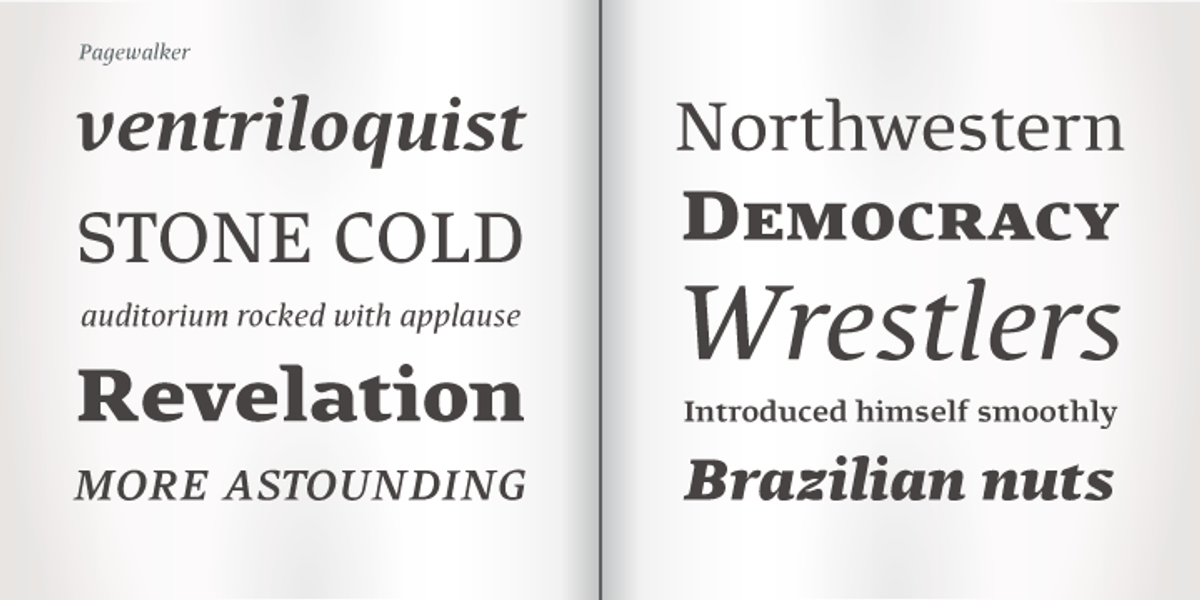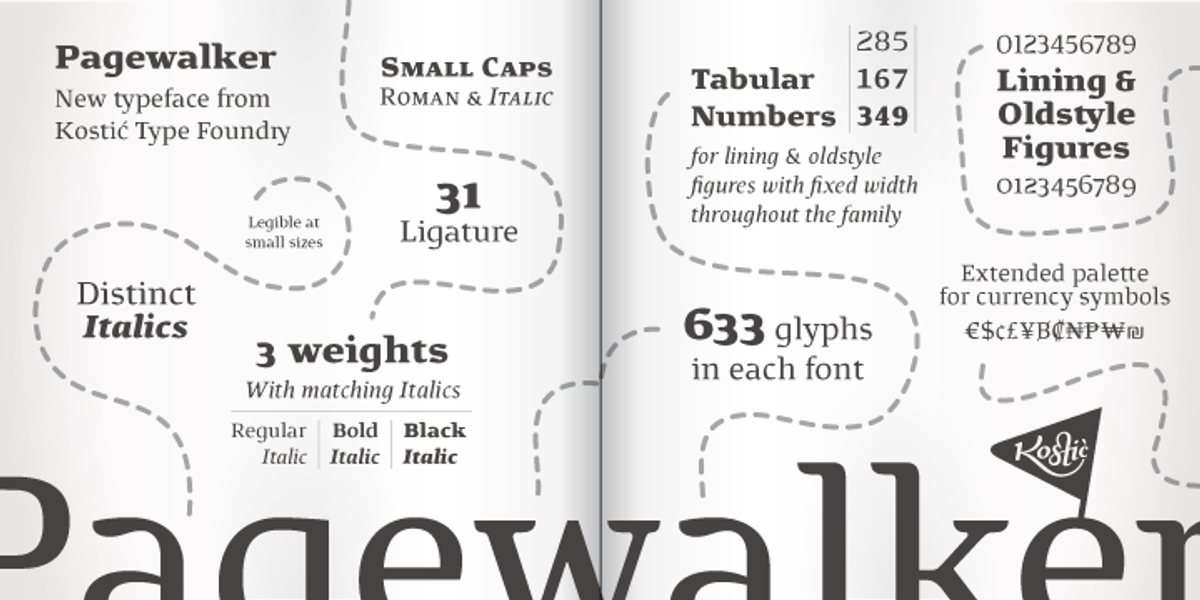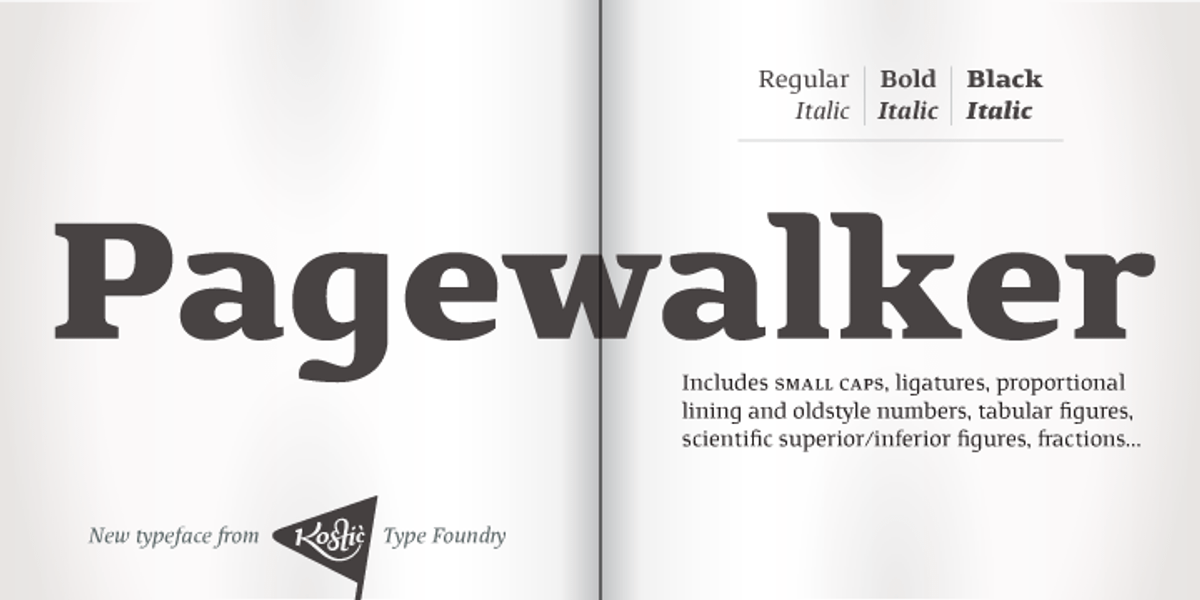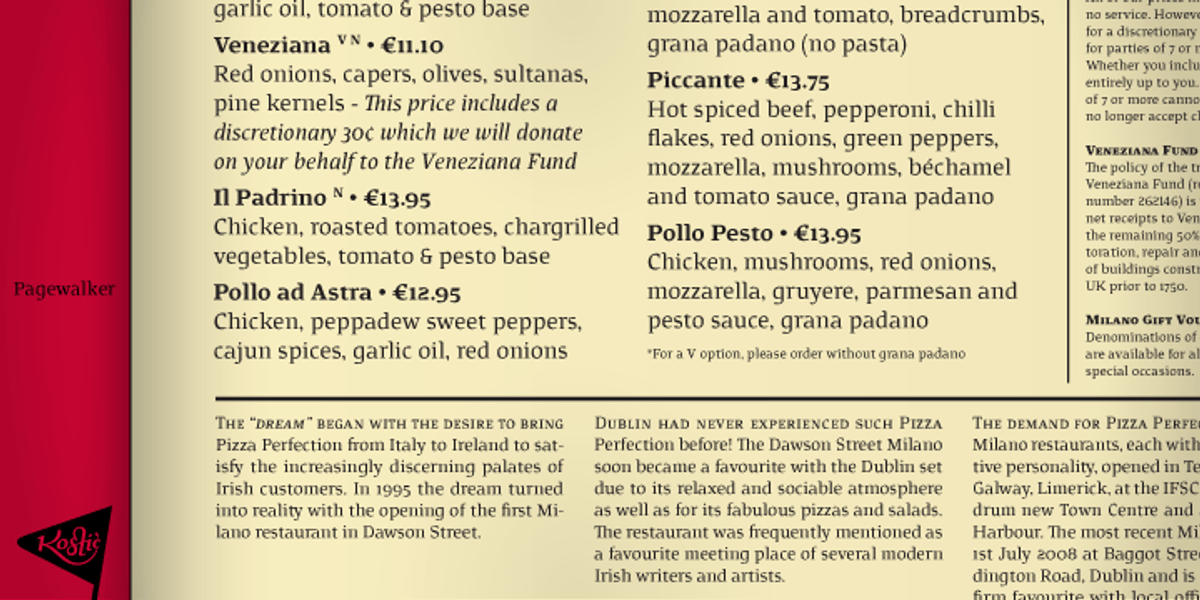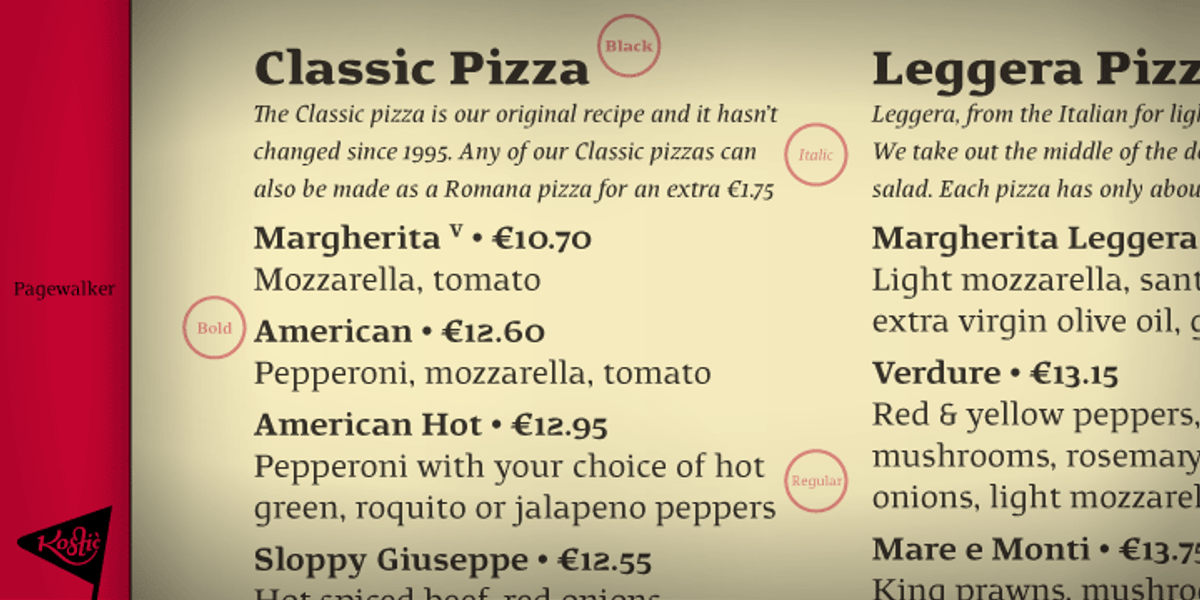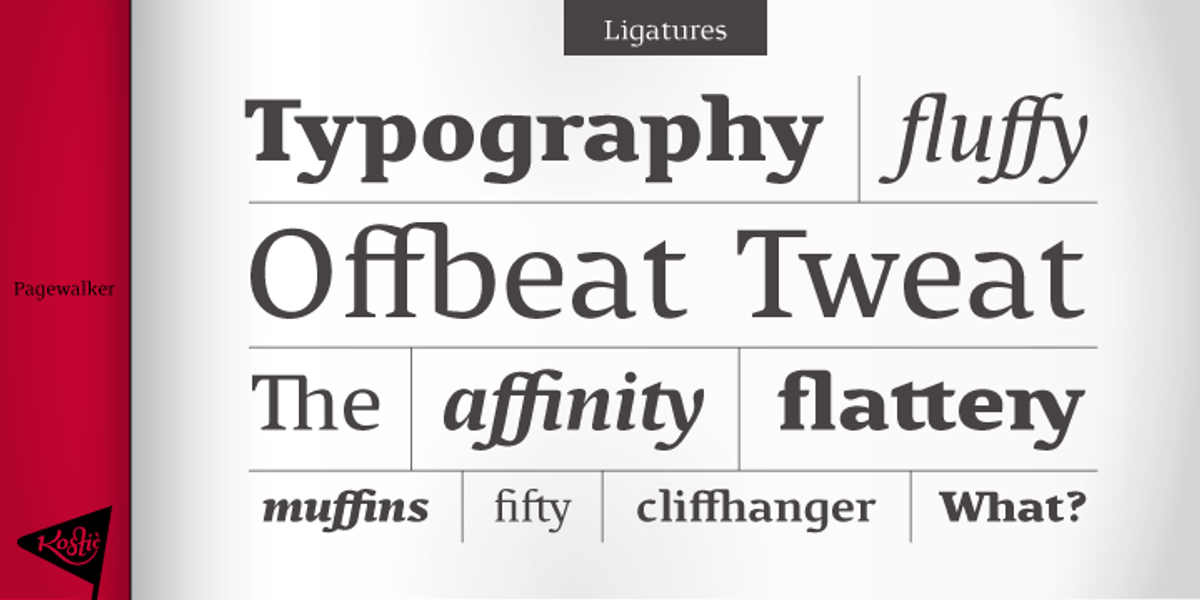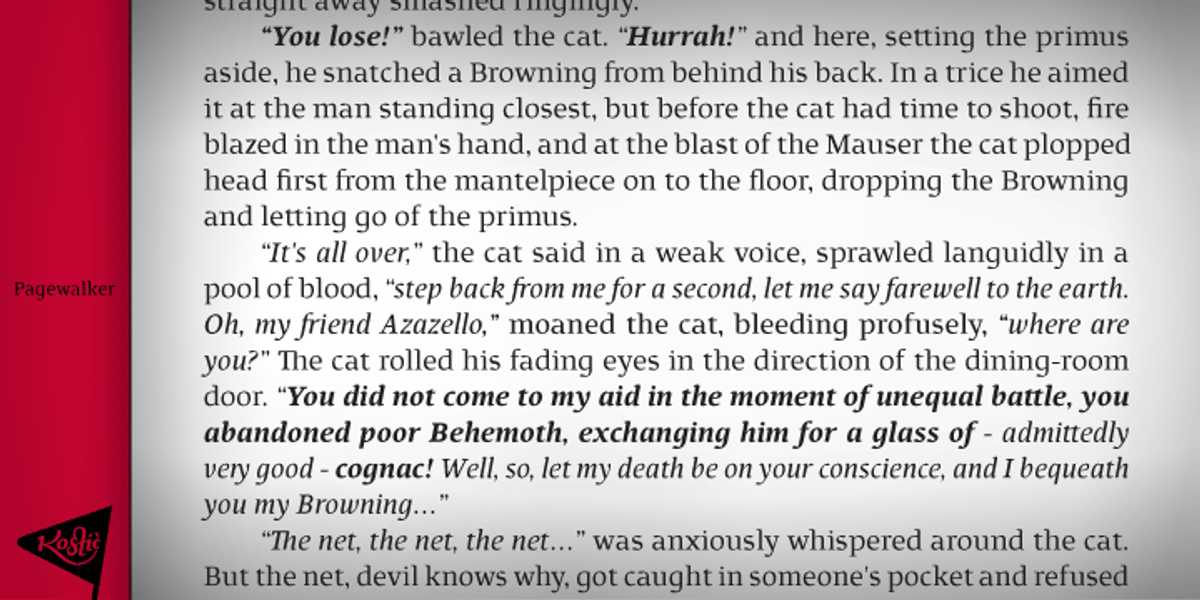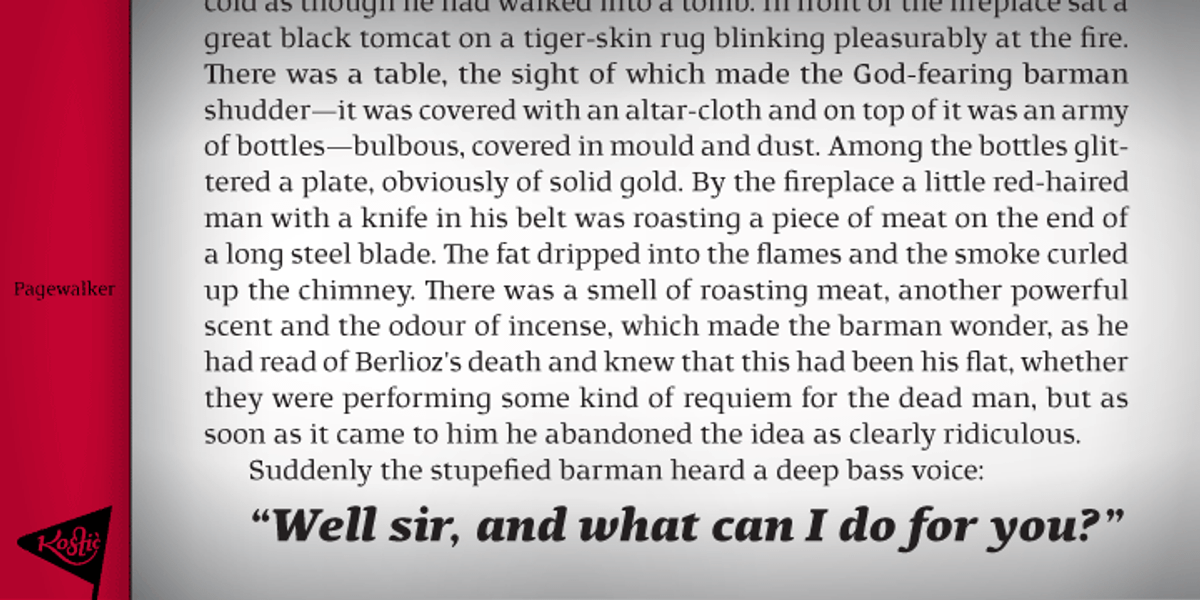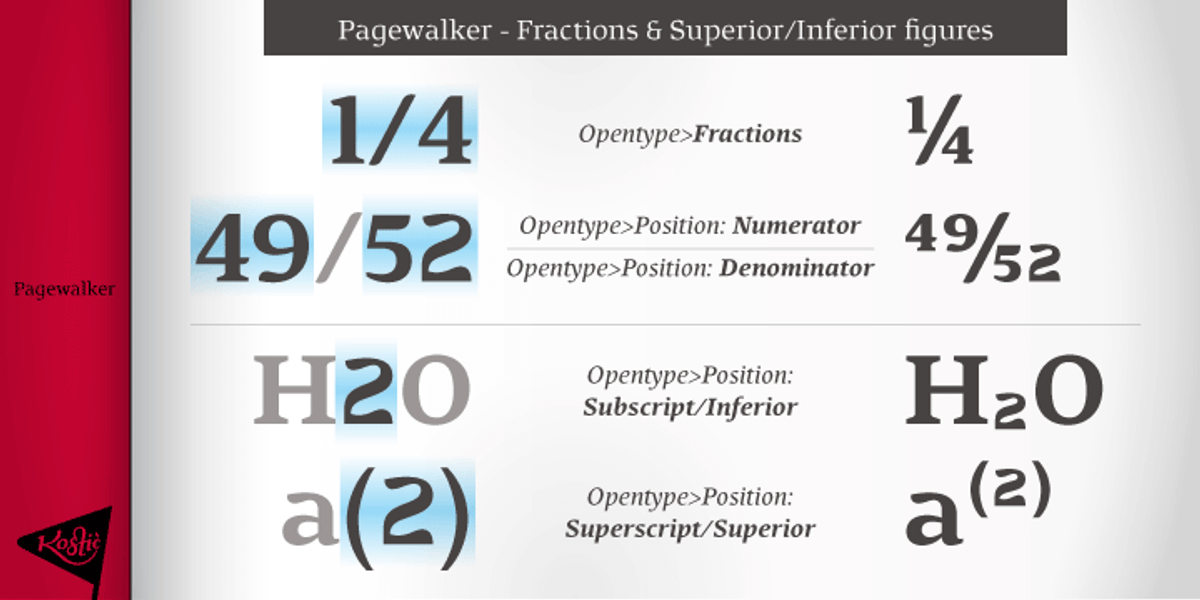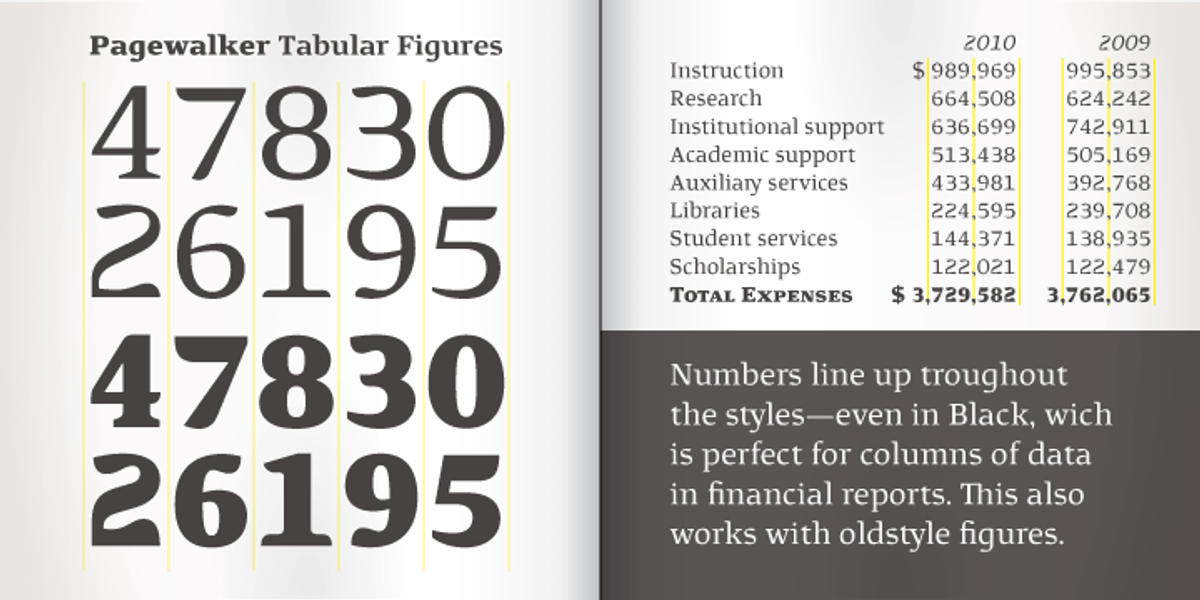
Pagewalker
Pagewalker is designed to be a highly legible font suitable for both extended text passages and larger display sizes. Its features include distinct italics, small caps, ligatures, and various numeral styles (lining, oldstyle, tabular), making it adaptable for different typographic needs. The font supports Western and Central European languages along with an extended set of monetary symbols, ideal for financial applications.